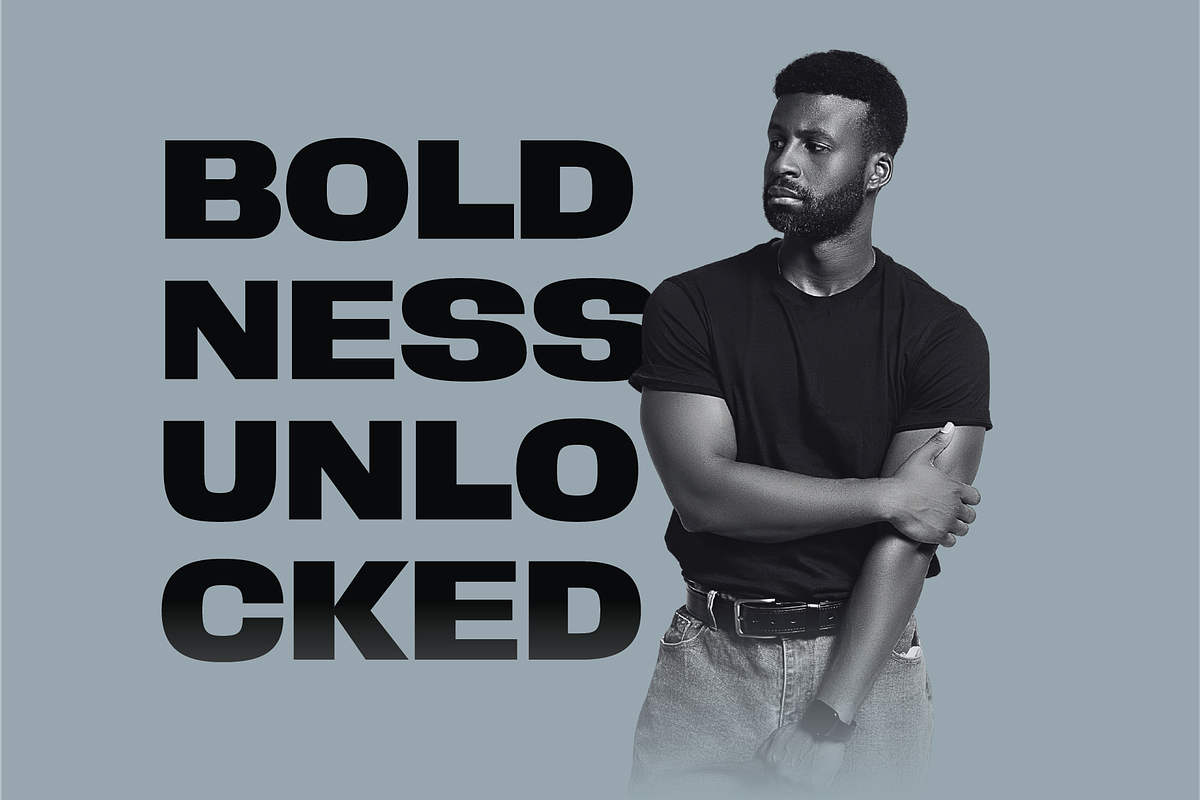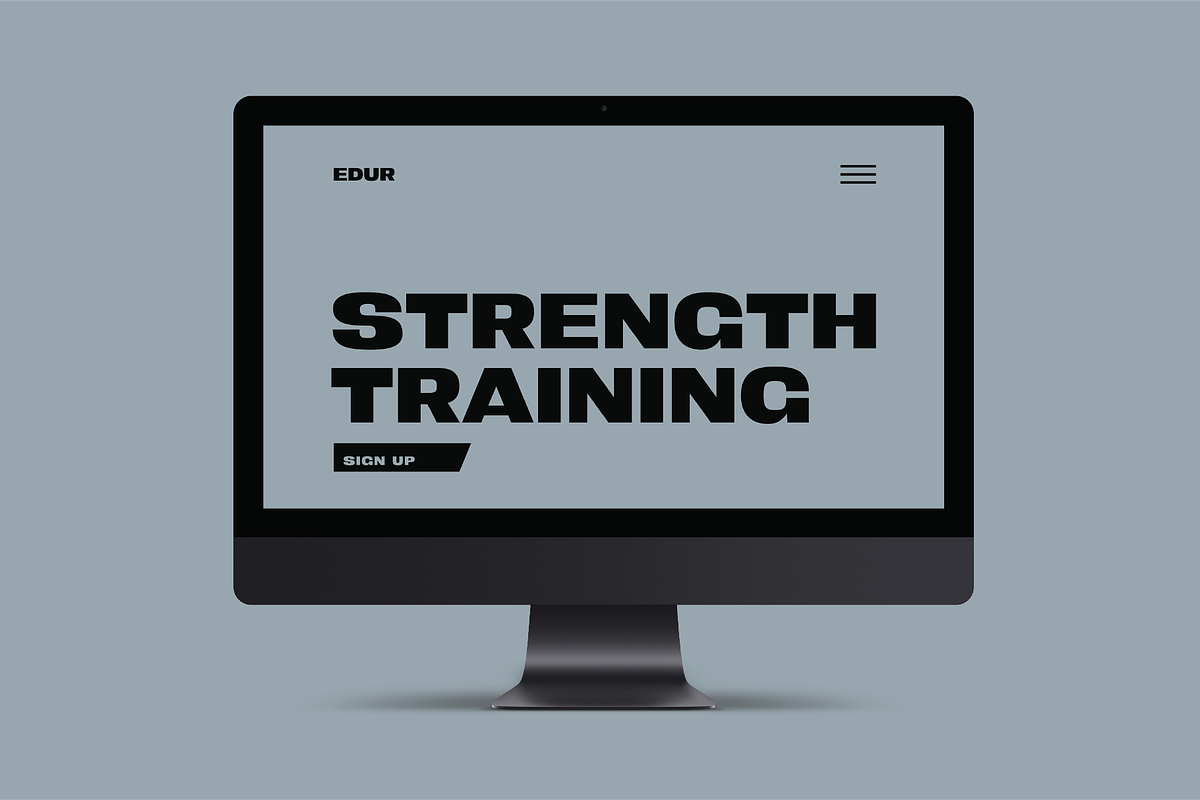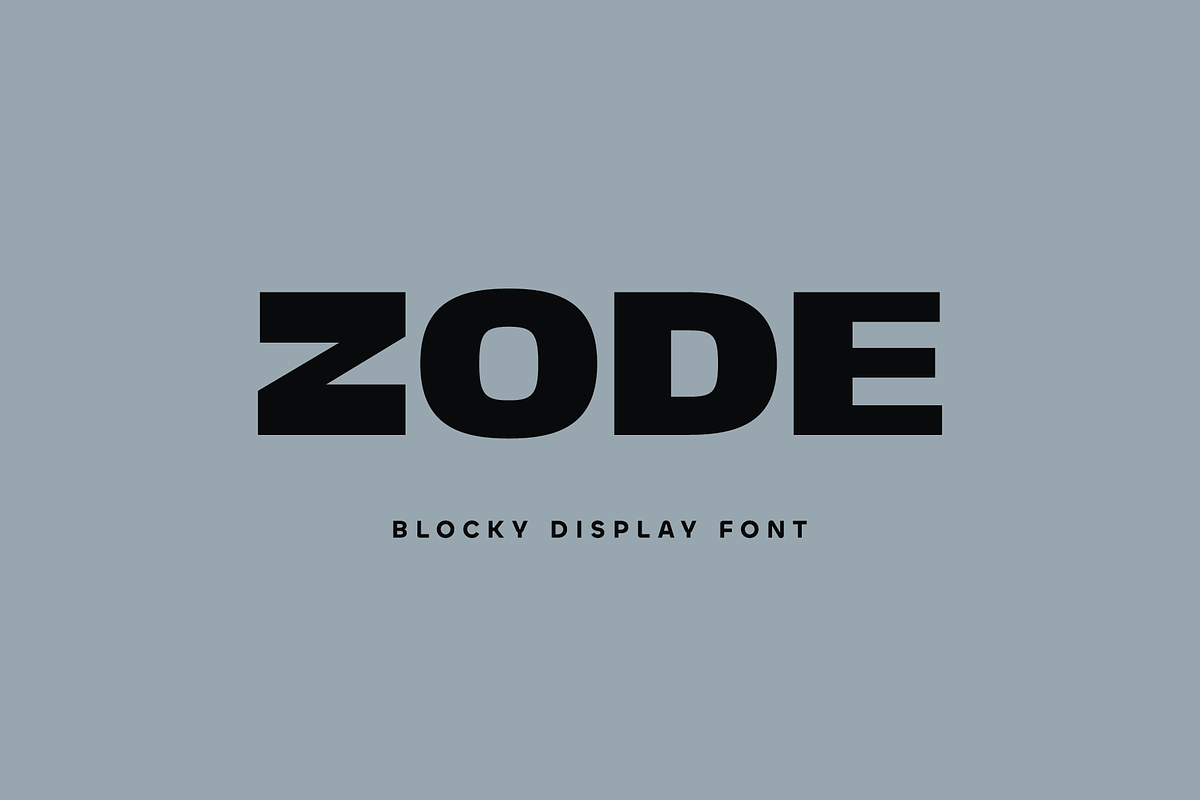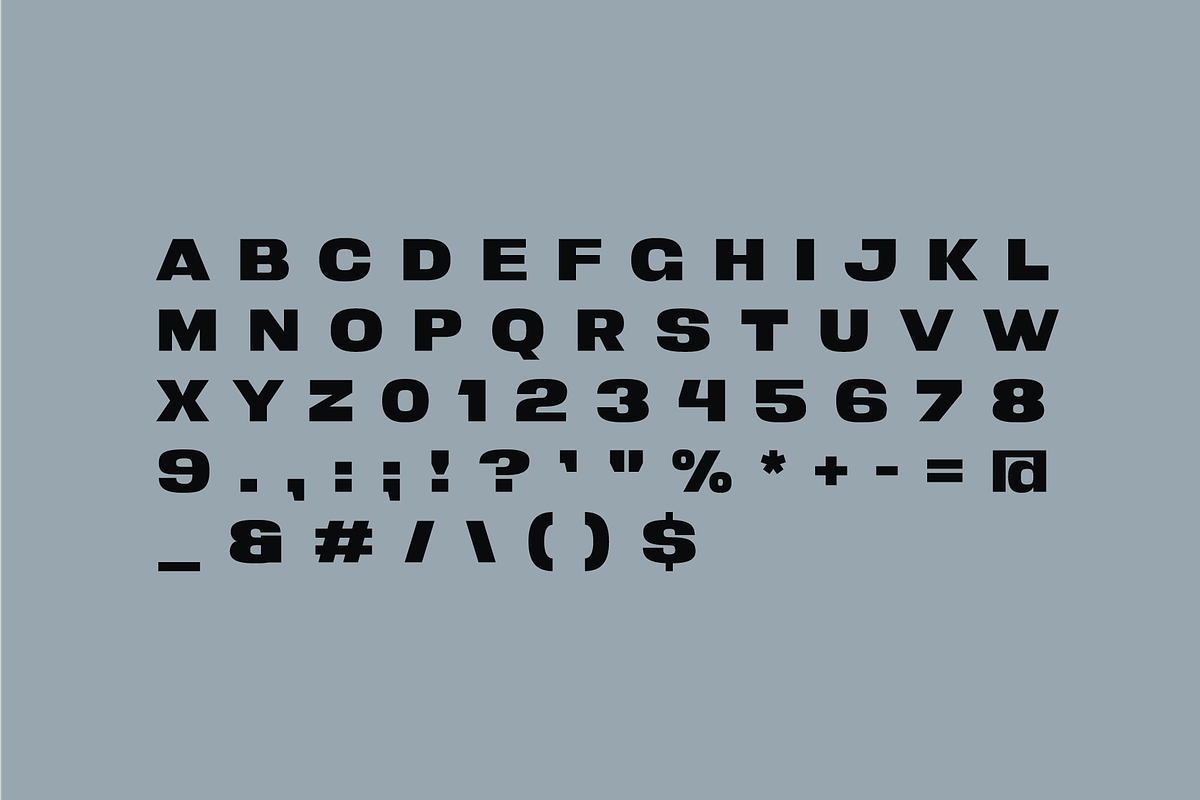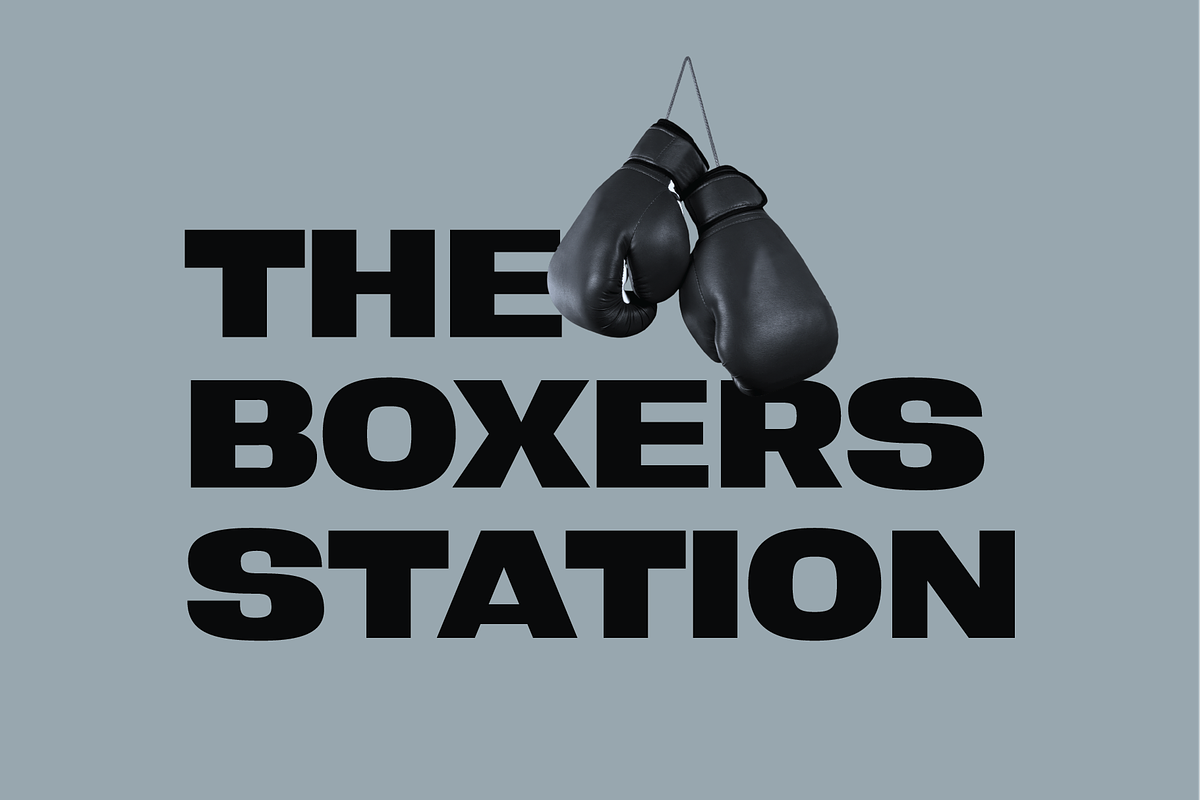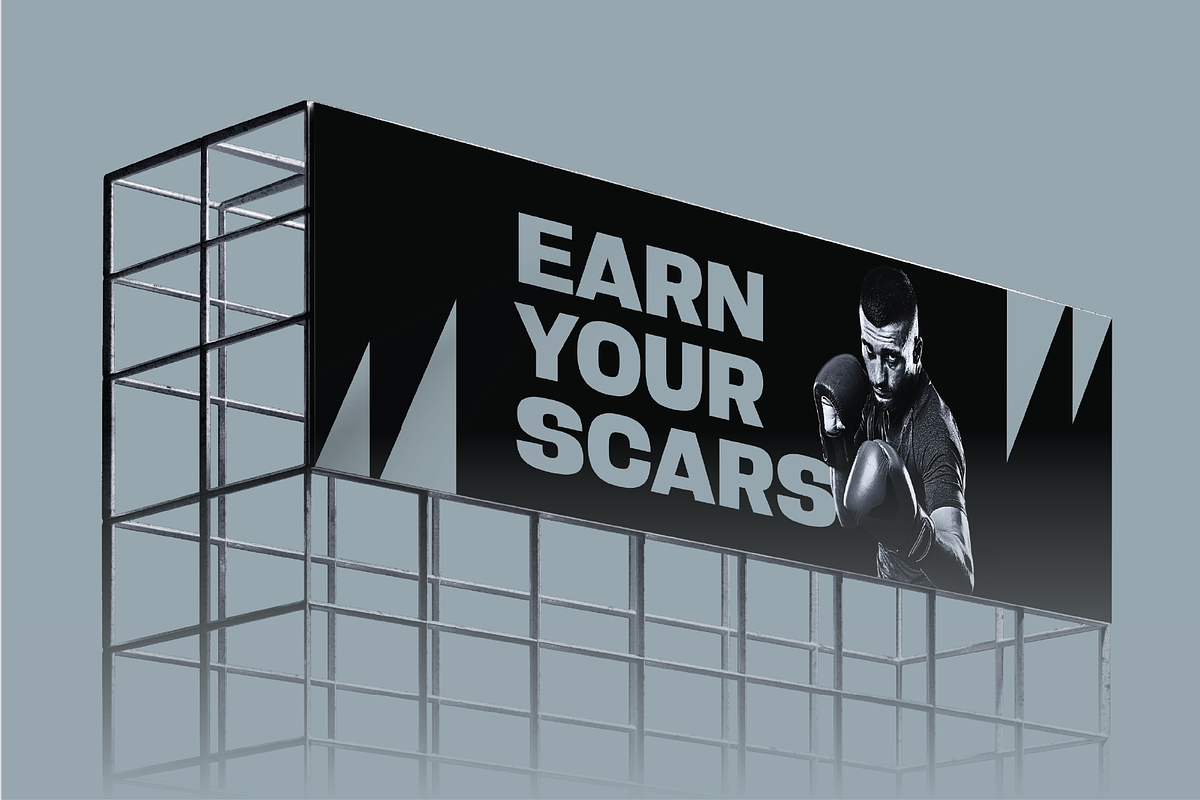
Zode-Bold Blocky Display Font
Zode is a powerful blocky display font built for maximum impact. Designed with bold geometric letterforms, heavy-weight structure, and a strong athletic attitude, this all-caps display font is perfect for branding, logos, posters, sportswear, streetwear, headlines, packaging, editorial design, and high-impact digital graphics. This extended font features industrial-inspired shapes, giving it a modern brutalist feel while maintaining excellent readability.